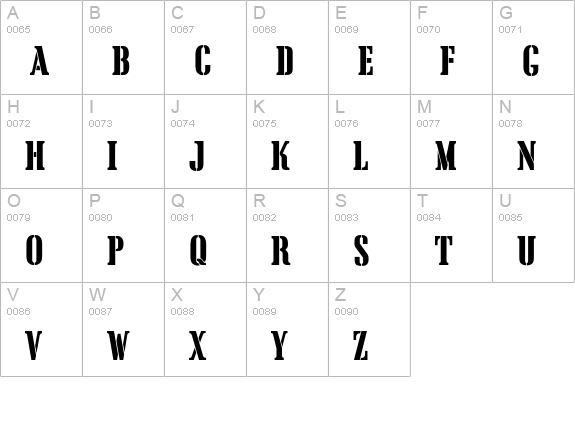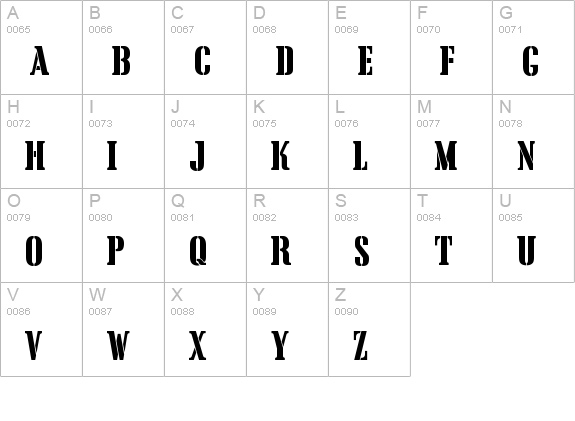
Topeka Font Details
Introducing Topeka, a breathtaking font that combines elegance, versatility, and a touch of modernity. With its sleek lines and graceful curves, Topeka is sure to captivate any audience, making it the perfect choice for a wide range of design projects. This stunning font offers a unique blend of sophistication and accessibility, making it suitable for both professional and personal use. Whether you're designing a logo, creating a website, or crafting an eye-catching advertisement, Topeka will effortlessly elevate your work to new heights. But what sets Topeka apart from other fonts on the market is that it is completely free. That's right, this extraordinary font is freely available to download at FontsMarket.com. Now you can enjoy the beauty and versatility of Topeka without breaking the bank. Designed with meticulous attention to detail, Topeka boasts a wide range of characters and ligatures, allowing you to create a truly custom look. Its extensive glyph set includes multiple language support, ensuring that your message can be effectively communicated to a global audience. Topeka's clean and crisp appearance makes it highly legible, even at small sizes. Whether you're working on a print project or a digital design, this font will maintain its clarity and readability, ensuring that your message is easily understood. So why wait? Experience the beauty and versatility of Topeka today. Download it for free at FontsMarket.com and unlock a world of endless creative possibilities. With Topeka by your side, your designs will truly shine and leave a lasting impression.